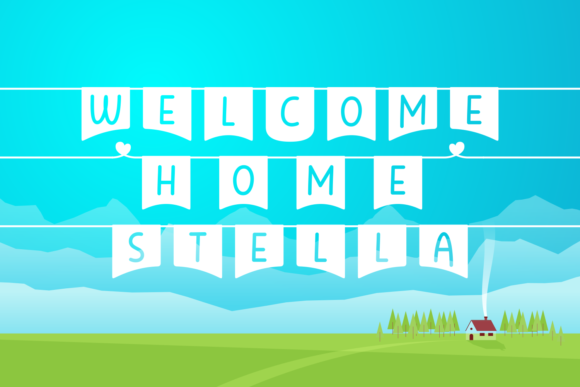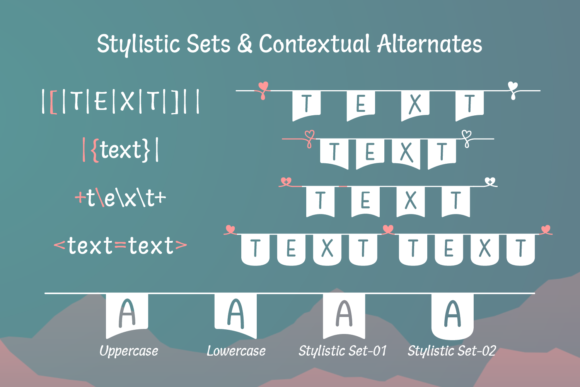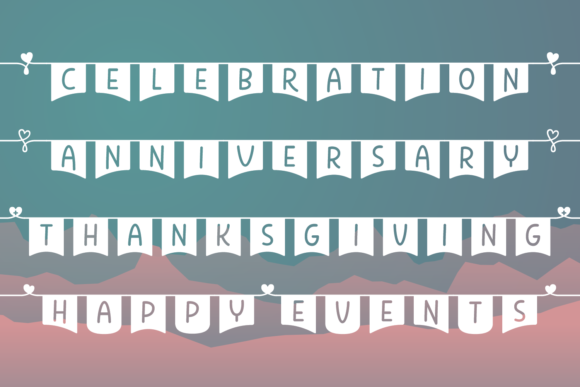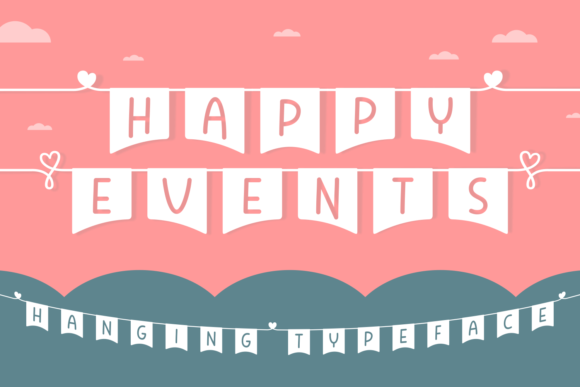
Introducing Happy Events Font: The Perfect Addition to Your Fun and Festive Designs
Are you a designer or crafter looking for a font that can add a touch of youth and joy to your party invitations, gatherings, or any design project? Look no further than Happy Events Font! This cool and fun decorative font is perfect for creating eye-catching and engaging designs that are sure to bring a smile to anyone’s face.
What Makes Happy Events Font So Special?
Happy Events Font is a unique and creative font that is designed to bring a sense of fun and playfulness to your designs. Its decorative style is perfect for party invitations, birthday cards, and other celebratory designs. The font is also highly versatile, making it suitable for a wide range of design projects, from digital graphics to print materials.
One of the standout features of Happy Events Font is that it is PUA (Private Use Area) encoded. This means that you can access all of the amazing glyphs and ligatures with ease, allowing you to create complex and visually appealing designs. With PUA encoding, you can easily insert special characters, such as swashes, flourishes, and ornaments, into your text, giving your designs an extra touch of personality and flair.
Endless Design Possibilities with Happy Events Font
The design possibilities with Happy Events Font are endless! You can use it to create:
- Party invitations for birthdays, weddings, and other celebrations
- Fun and playful graphics for social media and blogs
- Custom signs and banners for events and parties
- Decorative elements for craft projects, such as scrapbooking and card making
- Eye-catching titles and headings for digital graphics and print materials
Why Choose Happy Events Font?
There are many reasons why Happy Events Font is the perfect choice for your design projects. Here are just a few:
- Unique and eye-catching design: Happy Events Font has a one-of-a-kind design that is sure to grab attention and add a touch of personality to your designs.
- Highly versatile: This font is suitable for a wide range of design projects, from digital graphics to print materials.
- Easy to use: With PUA encoding, you can easily access all of the glyphs and ligatures, making it simple to create complex and visually appealing designs.
- Perfect for designers and crafters: Whether you’re a professional designer or a crafter, Happy Events Font is the perfect addition to your design toolkit.
- Cool and fun decorative font
- Perfect for party invitations, gatherings, and other celebratory designs
- Highly versatile and suitable for a wide range of design projects
- Easy to use and perfect for designers and crafters